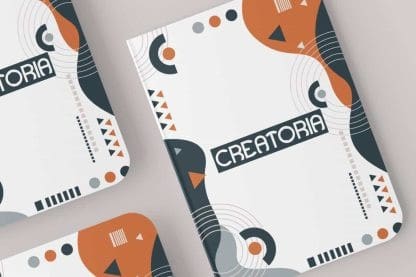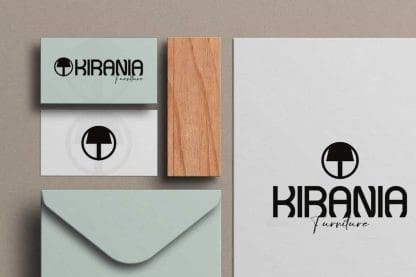
Creatoria Font
Creatoria Font is a unique modern sans serif display font with curve edge lines. Even though it has a unique shape, all the characters in this font have a modern style that you can pair with other types of fonts and also in many types of designs, such as billboard, brand image, card, cover, custom design, flyer, invitation, label, menu, packaging, poster, screen print, signage, social media post, stationery, sticker, title, website, and many more!
Creatoria Font It can complement every type of design you create, so many industries will use it, such as accessories, advertisement, book and comic, café, content creator, event organizer, fashion, game, graphic design, handicraft, homeware, movie, musician, photography, printing, publishing, etc.
Creatoria Font comes with a full set of ALL CAPS for Uppercase and Lowercase Basic Characters, Number, a large range of Punctuation, and Symbol. It’s a versatile font that works well on both large and small size scales. The font has also been equipped with multilingual support that is ready to use either on Windows or Mac machines with a simple installation. It’s tested to work well in the Adobe Apps (Illustrator, Adobe InDesign, Adobe Photoshop) CorelDraw, and others. PUA Encode Characters means you can access all the characters easily – Fully accessible without additional design software.